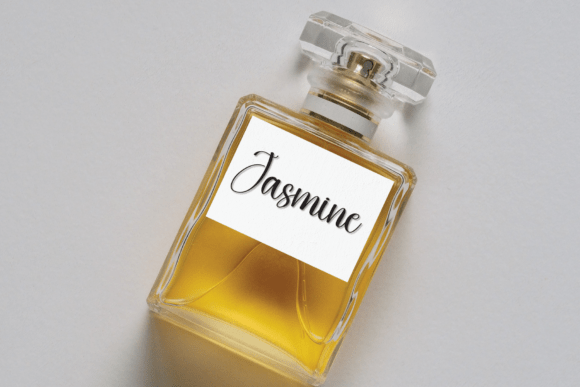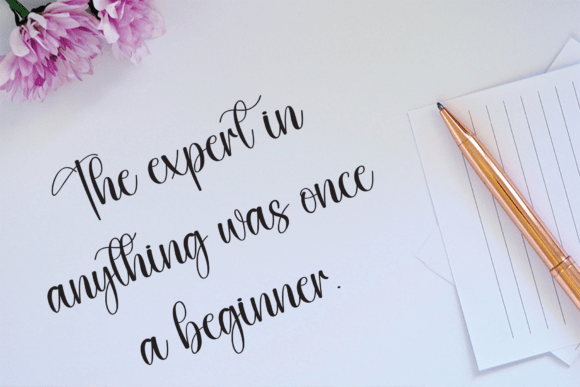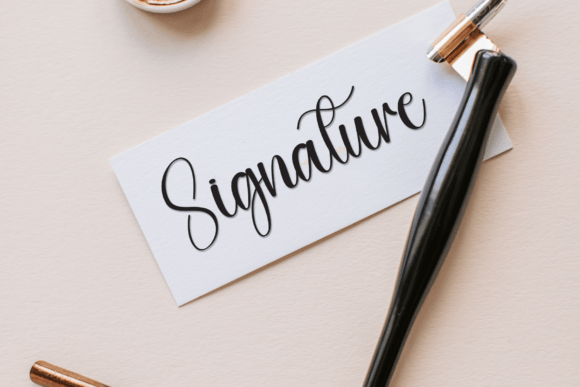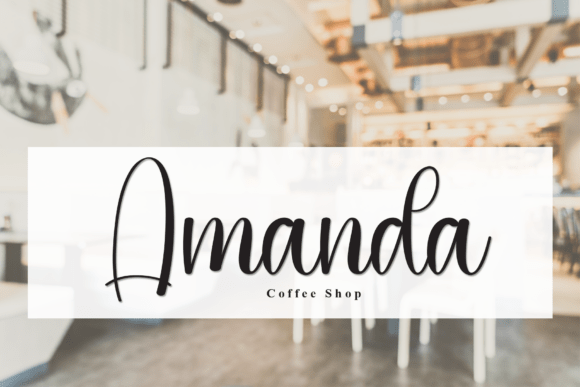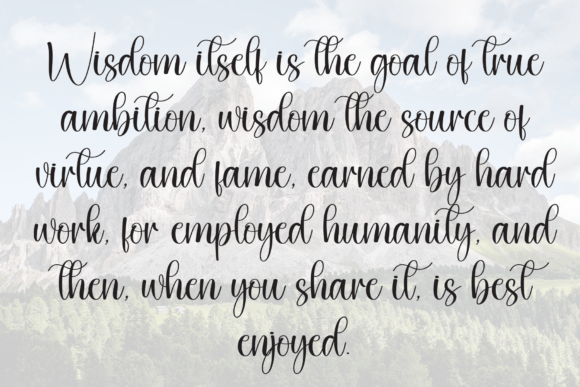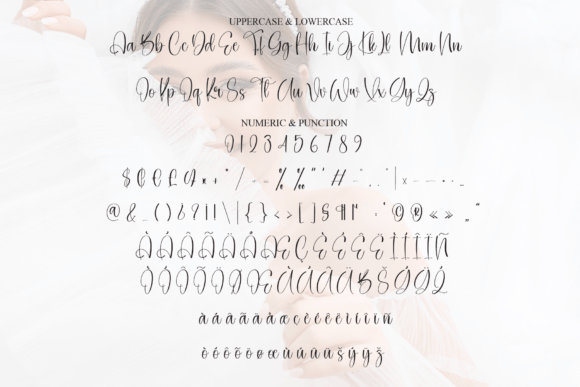
Meet Your New Design BFF: Bride Font
Do you ever find yourself staring at a blank page, trying to bring a design idea to life? That’s where the magic happens – and sometimes, it’s as simple as finding the right font. For designers, a good font can be the key to unlocking a project’s full potential. That’s why we’re excited to introduce you to Bride Font, a sweet and friendly handwritten font that’s perfect for adding a touch of personality to your designs.
With its natural and unique style, Bride Font is incredibly versatile and can be used in a wide range of designs, from wedding invitations and greeting cards to social media posts and advertisements. Its friendly vibe makes it an instant favorite among designers, and we can see why – it’s the perfect addition to any project that needs a little extra charm.
Bride Font Key Features
- Font Family: Bride is a script font family, characterized by its elegant and feminine design.
- Unique Characteristics: Bride font features intricate flourishes, swashes, and ligatures that add a touch of sophistication and elegance to any design.
Bride Font Review
I recently had the chance to work with the Bride font, and I must say it’s a beautiful addition to any project. ✨ Its elegant and refined design makes it perfect for wedding invitations, formal event materials, and other high-end projects.
Here are some of the things that I think work well with the Bride font:
- ✨ Elegant and refined design: The font’s intricate details and subtle curves make it perfect for creating a sophisticated and luxurious feel.
- ✨ Versatility: The font works well in both uppercase and lowercase, making it a great choice for titles and body text.
- ✨ High-quality digital rendering: The font looks crisp and clear in digital formats, making it perfect for online projects.
However, I did encounter some limitations when working with the Bride font:
- ⚠️ Limited character set: The font only includes a limited number of characters, which can make it difficult to work with for certain languages or projects that require a wider character set.
- ⚠️ Not suitable for casual projects: While the font is perfect for high-end projects, it may not be the best choice for more casual or informal projects.
Overall, I think the Bride font is a beautiful and sophisticated addition to any project. While it may have some limitations, its elegance and refinement make it a great choice for the right type of project.
Common Use Cases for Bride Font
1. Wedding invitations and save-the-dates.
2. Wedding stationery, such as programs and menus.
3. Social media